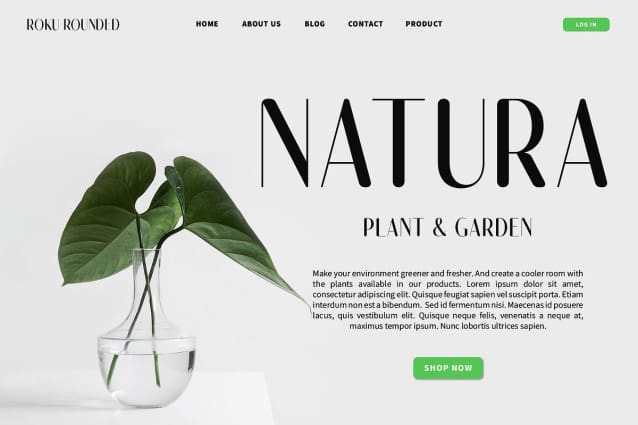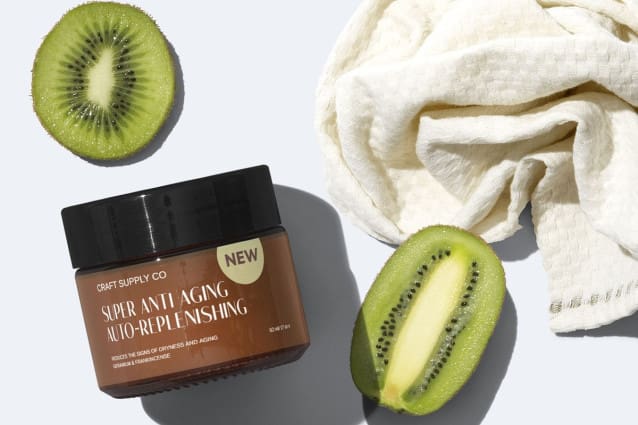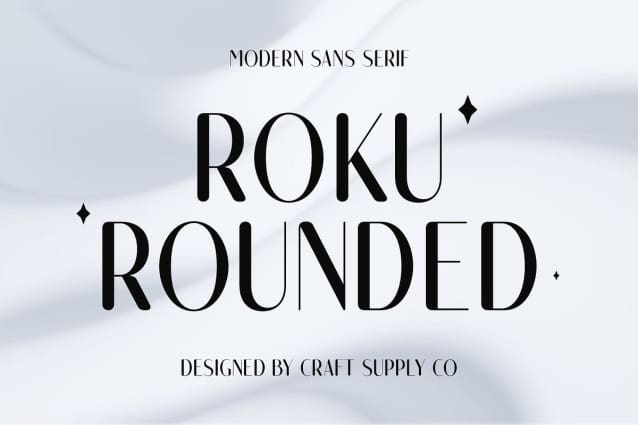
Roku Rounded Font
Roku Rounded Font: Embracing Modern Friendliness. Charming Low-Contrast Design Roku Rounded features a delightful sans-serif style with low-contrast strokes, exuding a warm and inviting vibe. Its rounded edges soften the overall appearance, adding to its friendly appeal.
Contemporary and Approachable With its modern design and rounded contours, This font strikes the perfect balance between professionalism and approachability. It seamlessly blends into various design contexts, from digital interfaces to printed materials.
Versatile Usage Across Platforms Designed for versatility, This font shines across a wide range of platforms, including websites, mobile applications, and branding materials. Its friendly demeanor ensures a positive user experience in every interaction.
Elevating Modern Communication In today’s digital landscape, effective communication is key. This font enhances modern communication with its friendly and approachable demeanor, making it an ideal choice for conveying messages with warmth and clarity.
Modernity Meets Friendliness This font embodies the essence of contemporary design with its low-contrast rounded sans-serif style. Whether in digital or print, it adds a touch of modernity and friendliness to any project, enhancing communication and fostering positive connections with audiences. Step into the world of Roku Rounded and elevate your designs with its inviting charm.